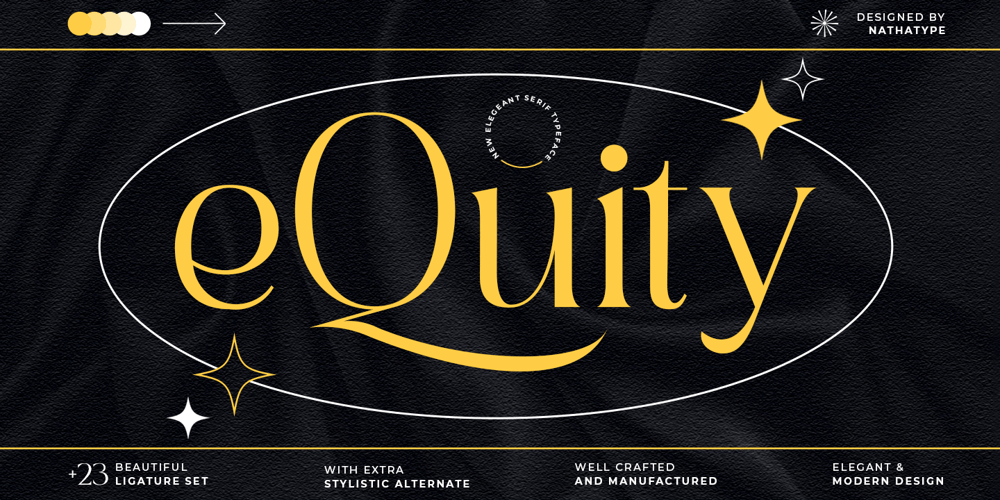
EQuity Font Family was designed by Donis Miftahudin and published by Nathatype. EQuity contains 1 styles and family package options. Are you looking for a serif font? Do you dream of creating headings that stand out and inspire creativity, imagination, and endless fun? Wait no more, we will give you the best choice.EQuity-A Serif FontEQuity is a modern, luxury, but still authentic serif font. This font is perfect for branding, logos, wedding stationery, cards, gift designs, photography, watermark, product packaging and quotes. You won’t get cute, whimsical, funny logos with this font. Only high-end, upscale, sophisticated Branding Design.Our font always includes Multilingual Support to make your branding reach a global audience. Inspire your audience, clients, or guests with this beautiful, statement font. Features: Alternates Ligatures Swashes PUA Encoded Numerals and Punctuation Thank you for downloading premium fonts from Natha Studio